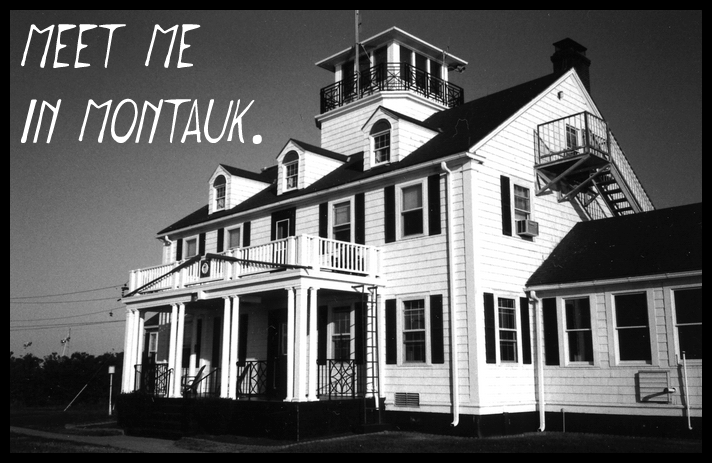
"Meet me in Montauk" is free for personal use. If you want to use this font for a commercial purpose, please contact us : optispesioptispe@gmail.com This font has been made with paper, pencils, two sets of hands, a scanner, and a lot of patience. The name on the font is inspired by the movie "Eternal sunshine of the spotless mind" Thank you for downloading our font, we hope you'll enjoy using it ! The illustration is a public domain picture taken by Jaymt, and can be found here : http://commons.wikimedia.org/wiki/File:USCG_Station_Montauk.jpg |